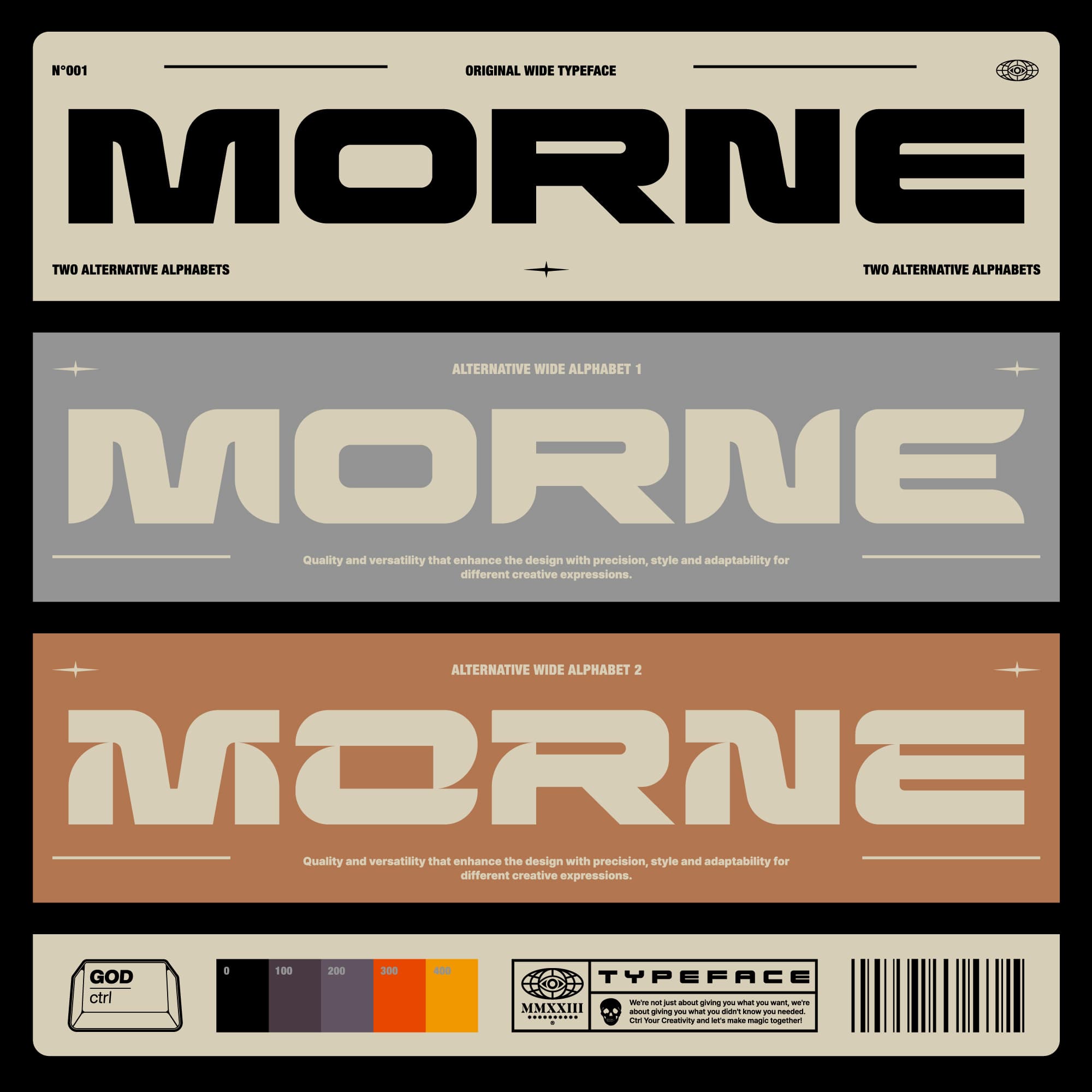
<p><strong>Behold, designers! Morne just dropped into the font game, and let us tell you, it’s not here to play — meet our typeface that’s as bold as your morning coffee.</strong></p><p>Whether you're crafting a killer headline, a sneaky subheading, or a bold poster, Morne’s got your back, front, and even your creative soul, bringing the perfect fusion of wide and heavy that slaps your audience awake.</p><p>It's a triple-threat wonder with three alternatives for every letter and number, including special, multilingual, and punctuation characters. It’s here to stand out, shout out, and give your font library a sleek upgrade.</p><p>Click, Design, Ctrl like you mean it with our new bold font.</p><hr><p><strong>WHAT YOU GET:</strong></p><ul><li><p>One bold typeface</p></li><li><p>Three alternatives for each letter and number</p></li><li><p>Special characters and punctuation included</p></li><li><p>256 total characters</p></li></ul><hr><p><strong>FILES INCLUDED:</strong></p><ul><li><p>Morne.otf</p></li><li><p>Morne.ttf</p></li><li><p>Morne.woff2</p></li><li><p>Read me.txt</p></li></ul><p></p>